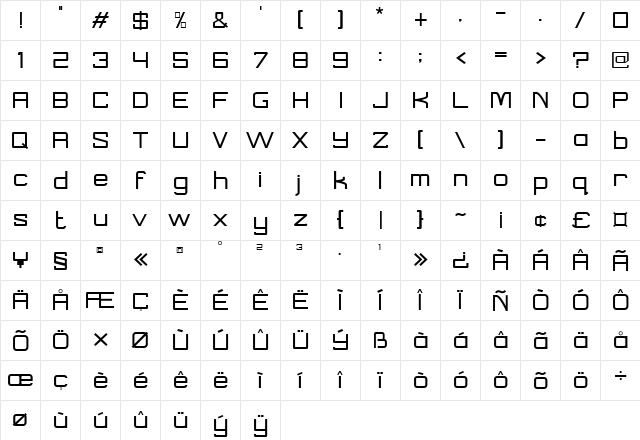
taylor Regular Font Preview
taylor Regular
taylor Regular Font Details
Design Context for taylor Typeface
taylor is a composed and adaptable typeface that performs quietly and consistently across a wide range of design contexts.